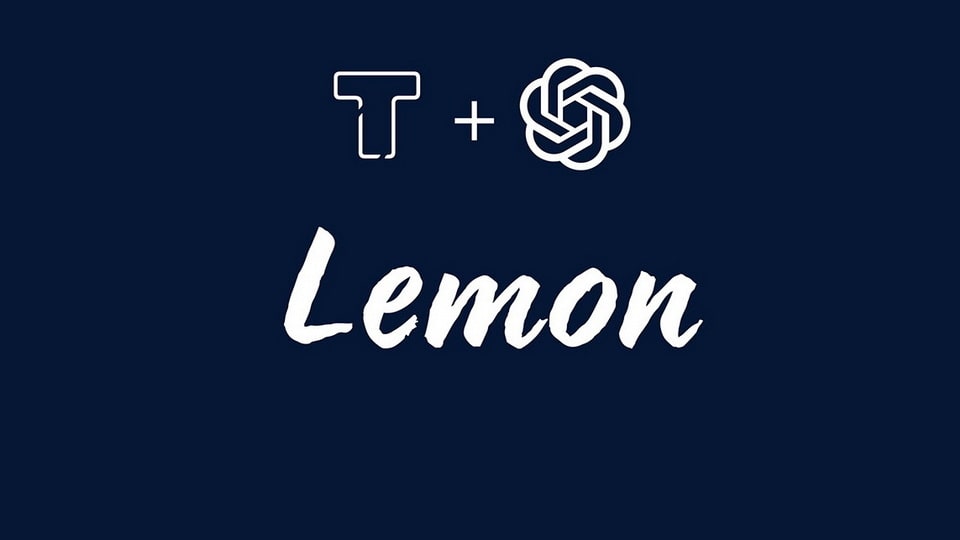
Download LT Lemon font, a typeface that emulates marker penmanship. It really does do the style of the medium justice. With a display like that, it can most certainly be used for logos, graphics.